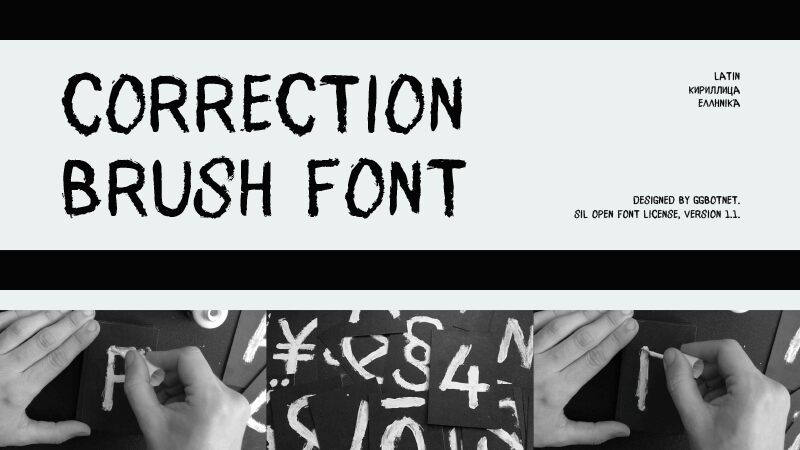
Correction Brush, a captivating brush font meticulously crafted by GGBotNet, adds a touch of elegance and authenticity to any project.
With its fluid strokes and dynamic energy, this brush typeface is perfect for creating eye-catching logos that demand attention. Its versatility makes it suitable for both digital and print designs, including website headers, social media graphics, packaging labels, and poster designs.
Whether you're aiming for a bold and edgy look or a whimsical and playful vibe, Correction Brush will effortlessly bring your artistic visions to life.